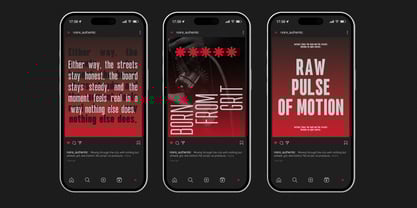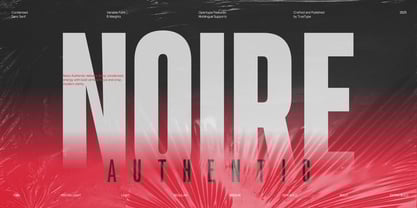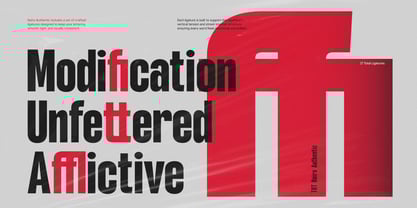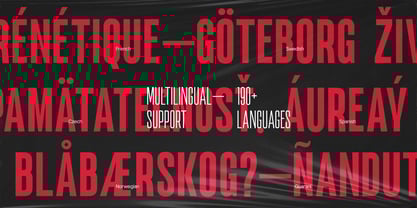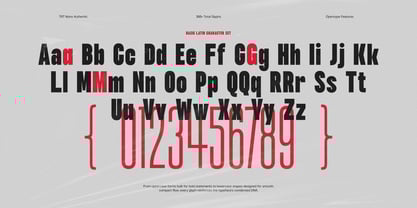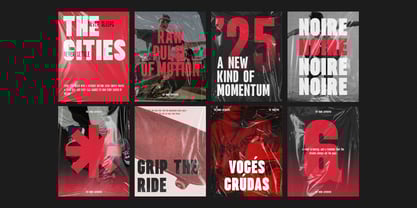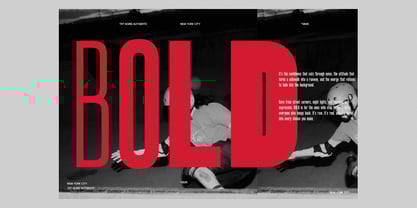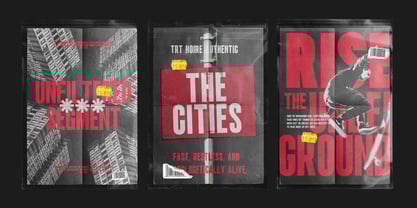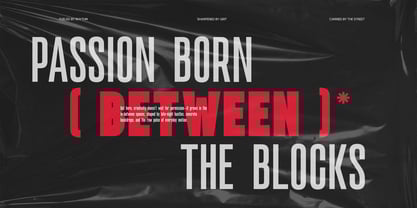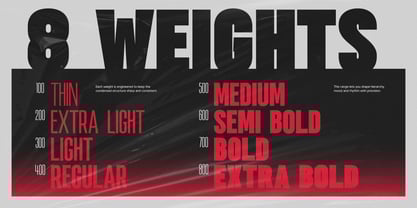
TRT Noire Authentic
by True Type Lab
The TRT Noire Authentic Font Family was designed by Yusilo Oktaprima Ardani and published by True Type Lab. TRT Noire Authentic contains 8 styles and family package options. More about this family
TRT NOIRE AUTHENTIC is a condensed sans serif built to amplify the bold, cinematic mood of the poster: sharp, vertical, and charged with energy. Its towering letterforms slice through the gradient like light in a dark room, combining strict geometry with an atmospheric glow that feels raw and modern at the same time. Every stroke is tightly controlled—narrow widths, deep counters, and crisp edges—so the type stays powerful and legible even when it dominates the entire frame. This creates a sense of tension and drama that fits oversized headlines, music visuals, and high‑impact brand graphics. As a variable font with eight weights from Thin to Extra Bold, TRT NOIRE AUTHENTIC lets you move effortlessly from ghost‑like, transparent titles to dense, heavy statements in one continuous spectrum. OpenType features and multilingual support keep it versatile for global use, from album covers and tour posters to contemporary noir‑style opening sequences.
Designers: Yusilo Oktaprima Ardani
Foundry: True Type Lab